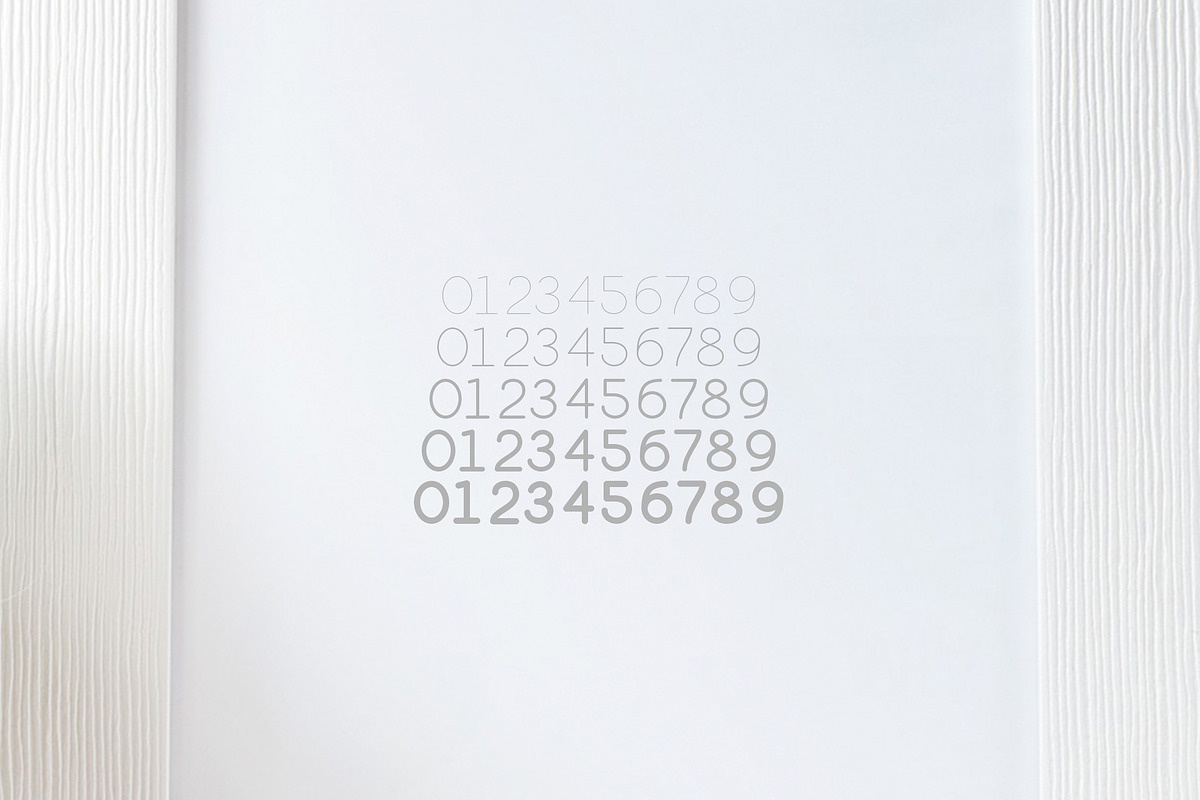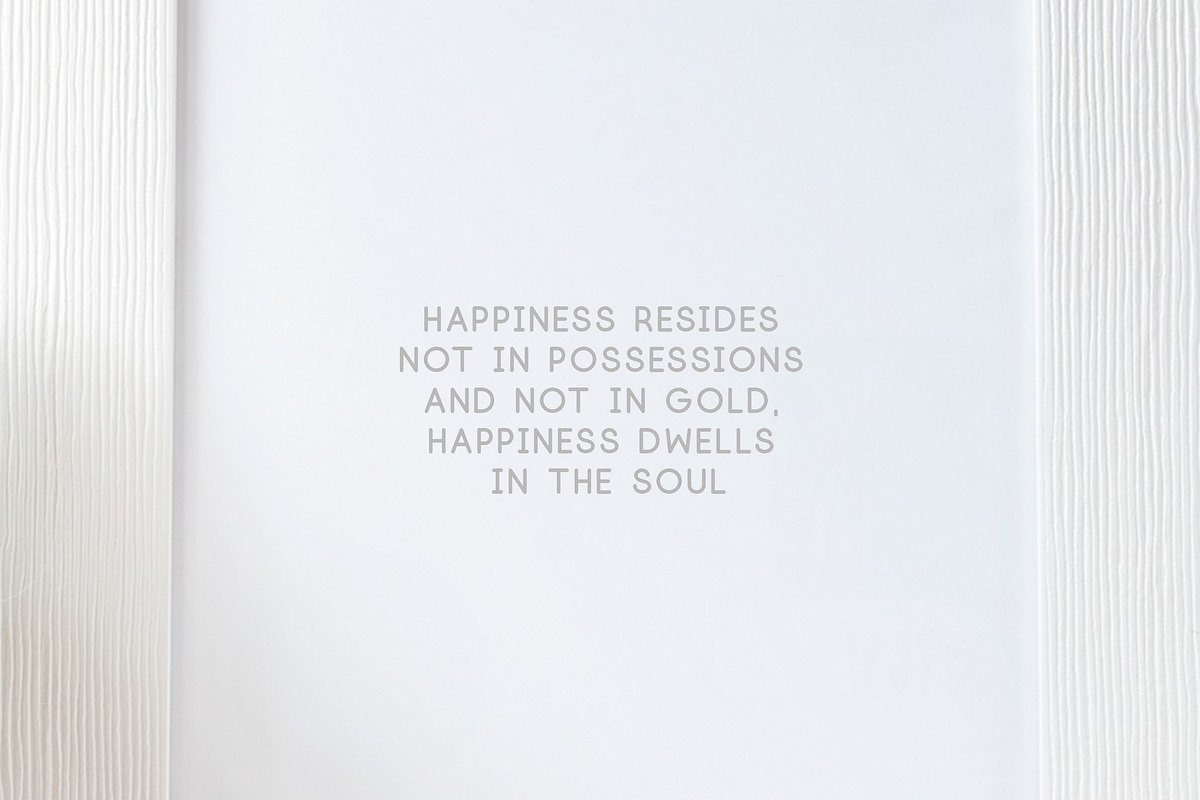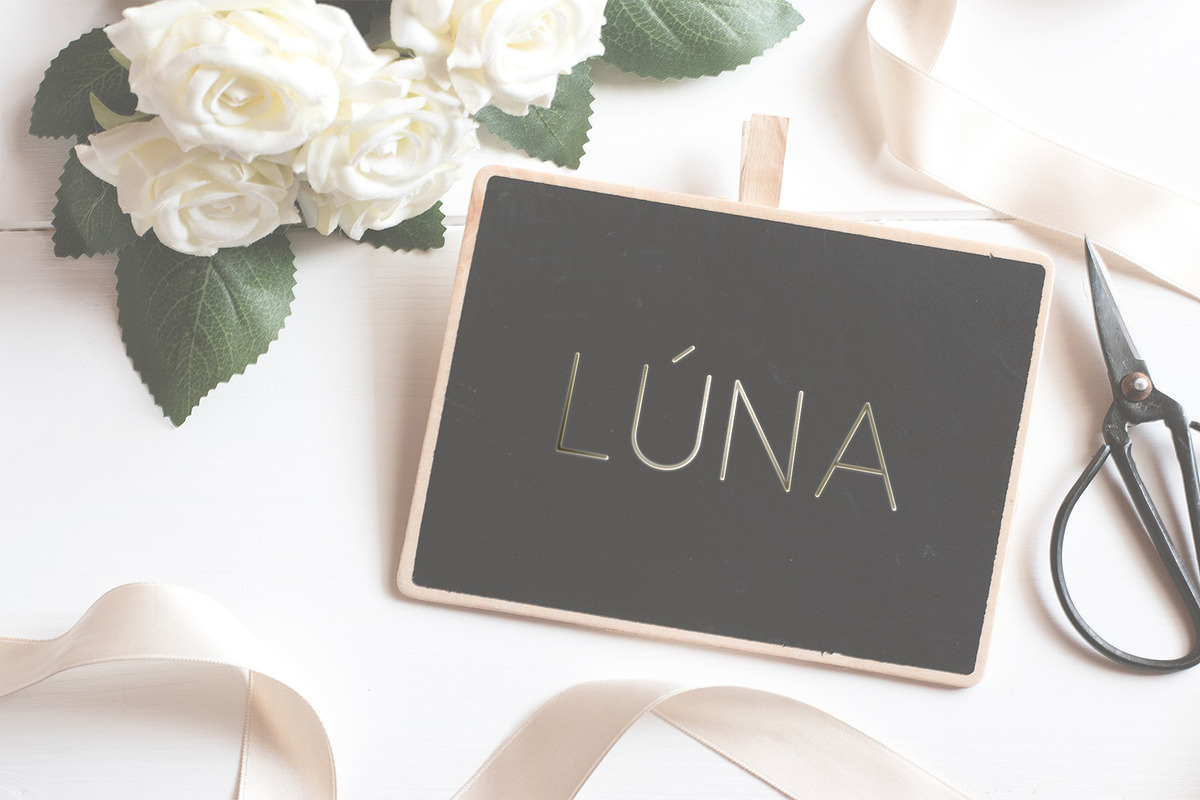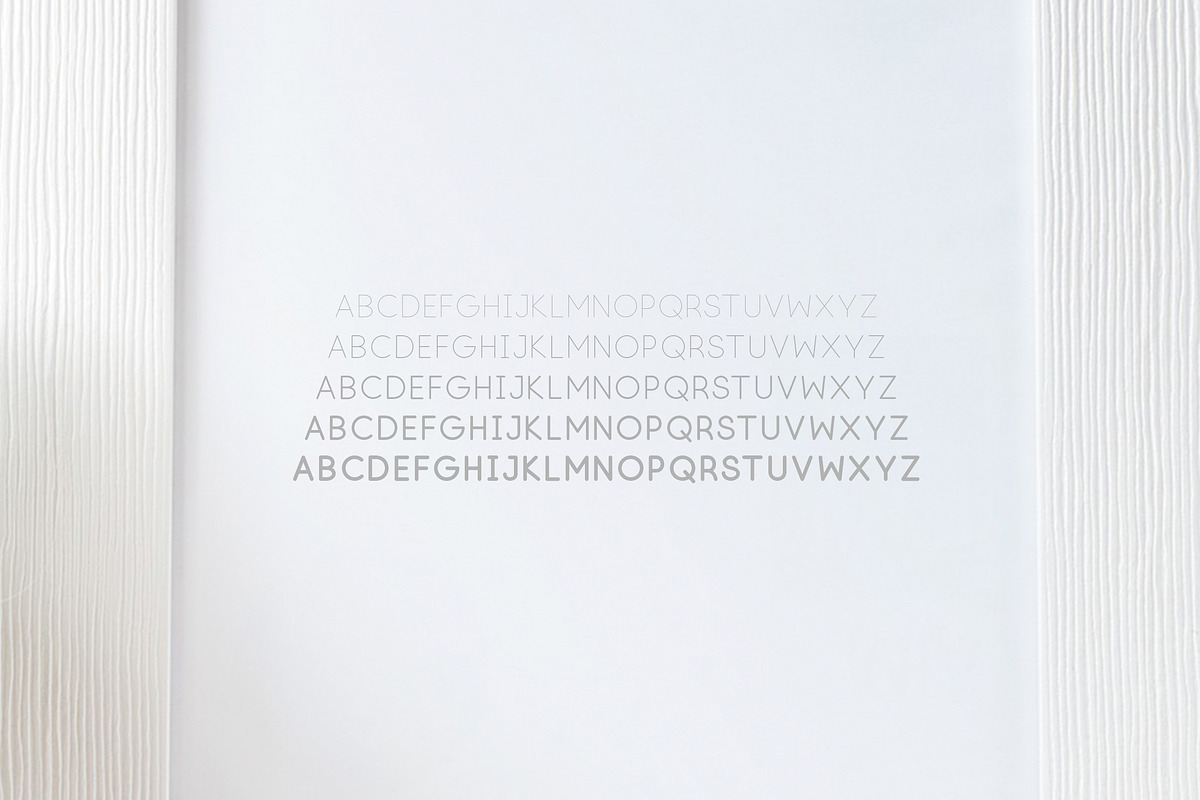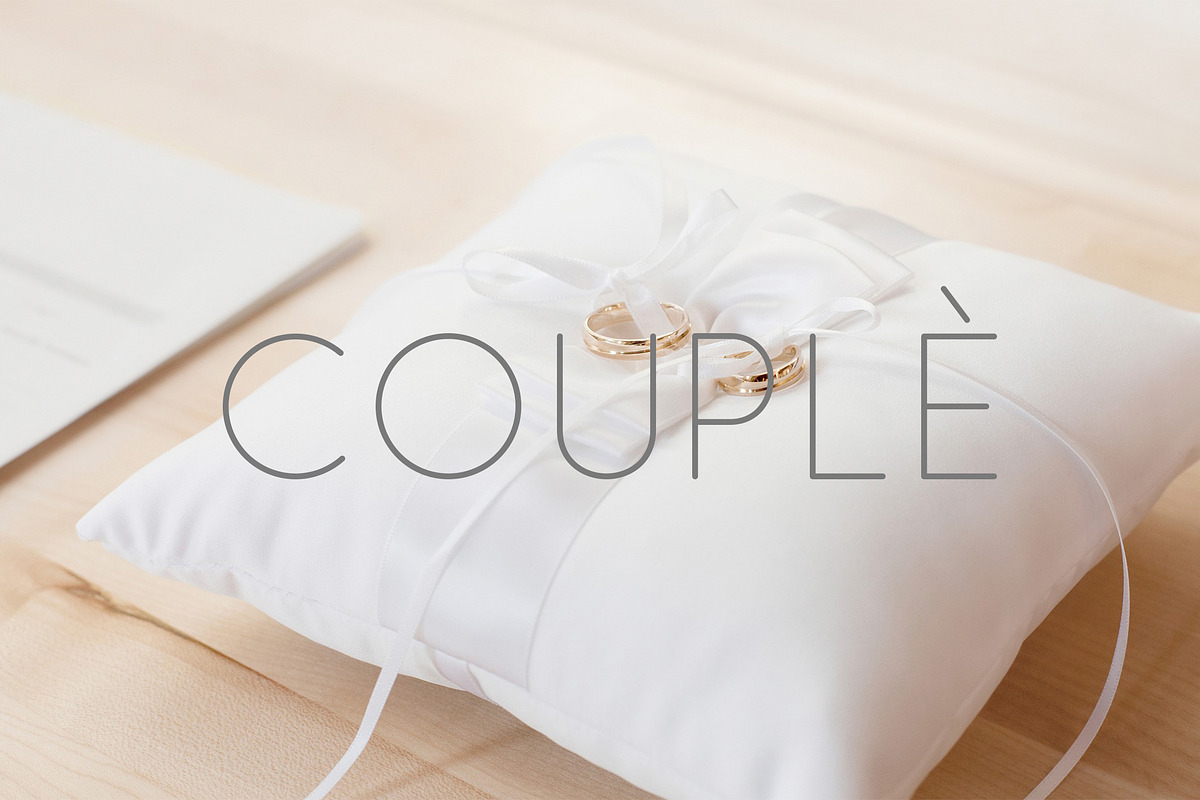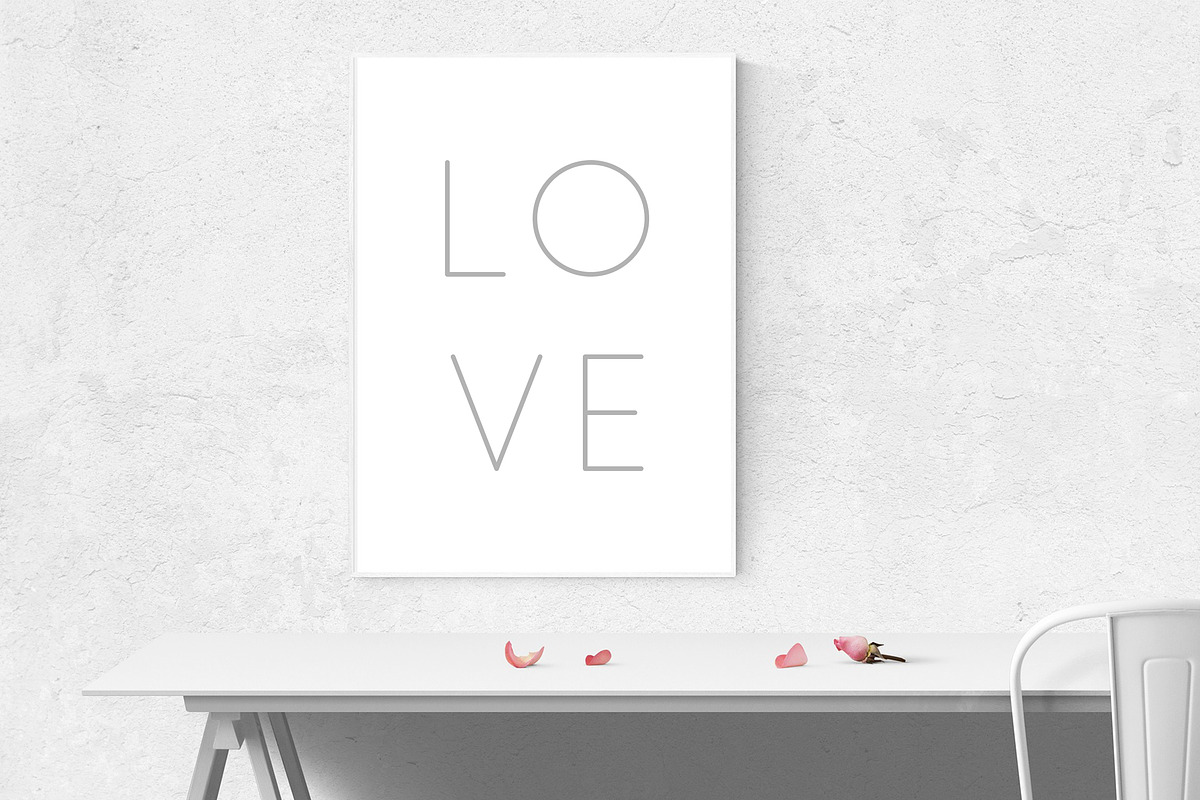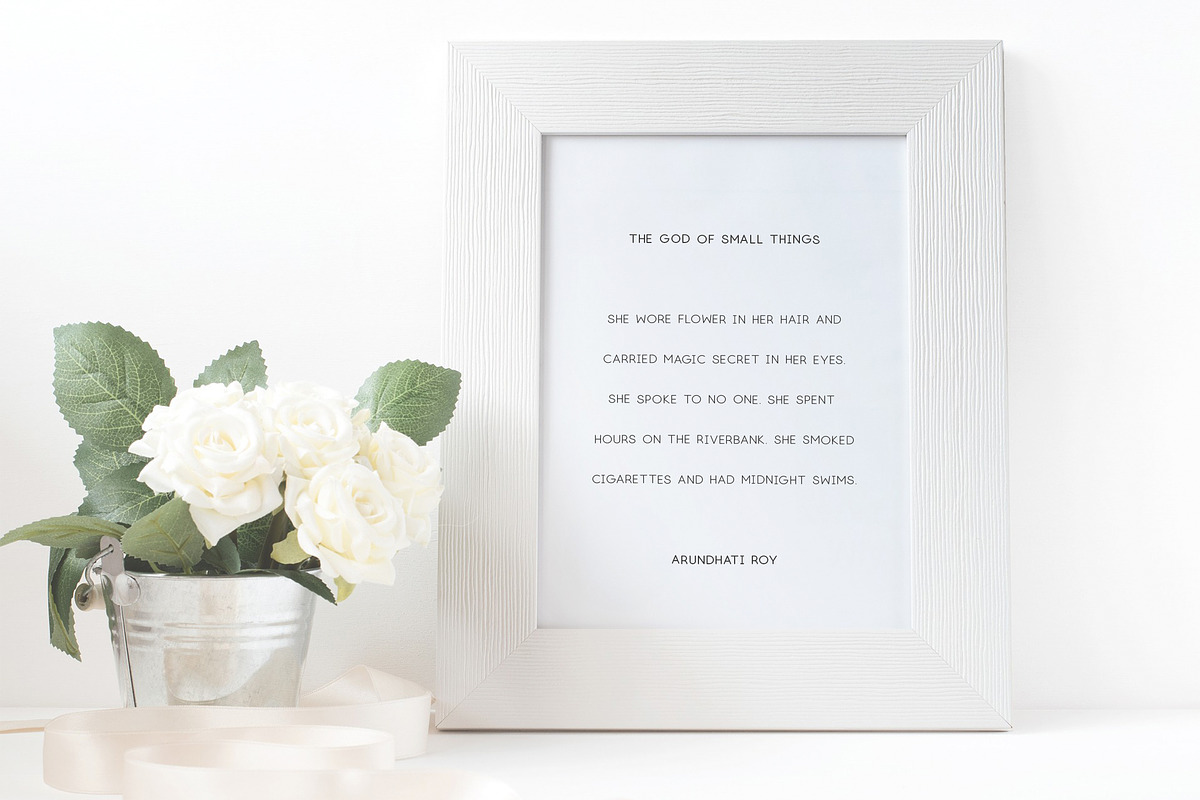
(NEW) Lúna - A Luxurios Font Family
Hi, I'm luna. Thank you for visiting me. I hope you are satisfied with me. I am very happy if I can help your work. Whatever work you do I hope to be included. Whether the job is related to logos, magazines, designs, weddings, cards, invitations, and more.
Oh yes, Luna can also be used in multingual languages. So, you do not have to worry anymore if you wear me.